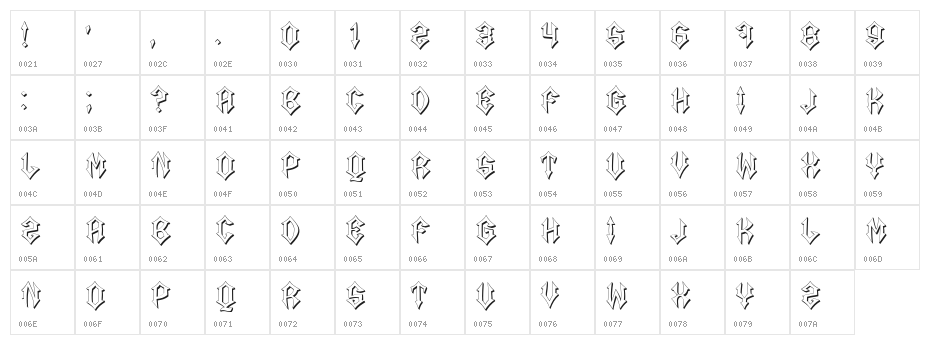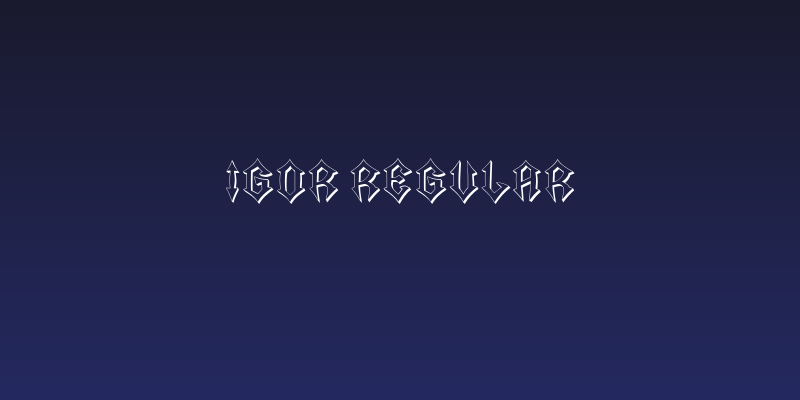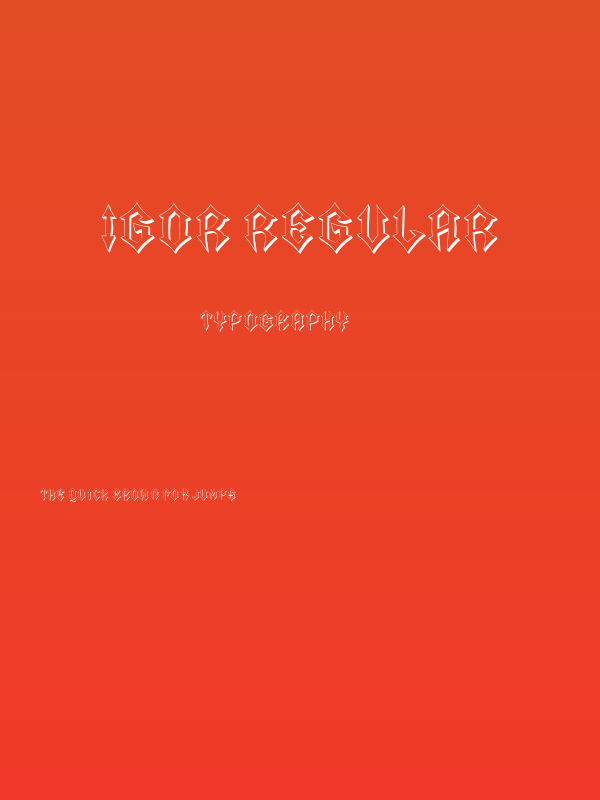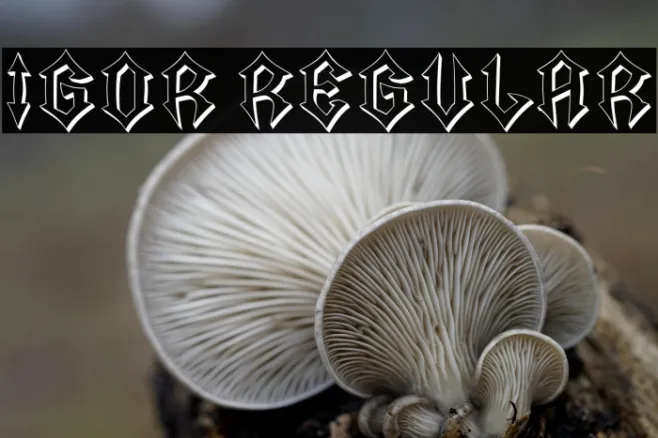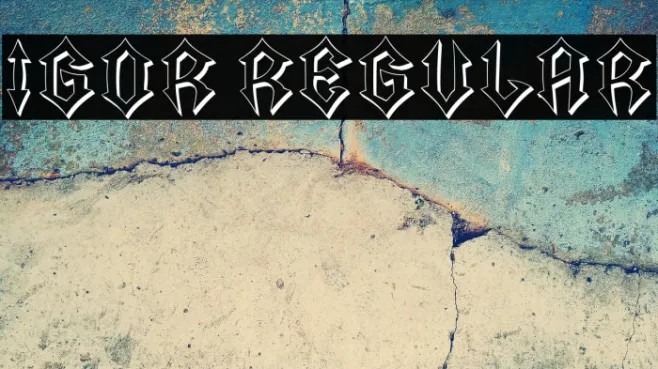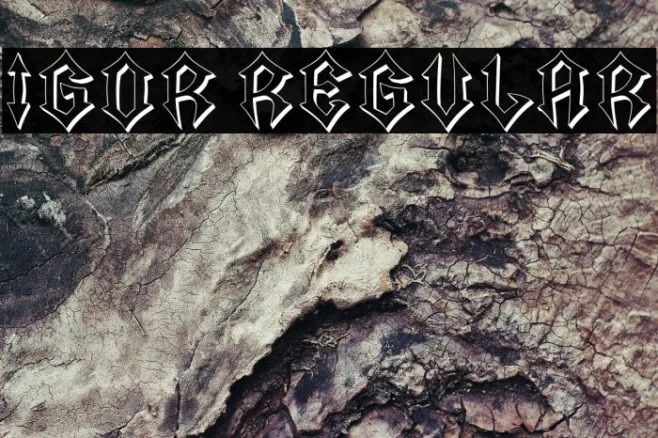
Igor Regular Font
Igor Regular Description
This font features a bold and striking design, characterized by sharp, angular lines and a gothic-inspired aesthetic. The uppercase and lowercase letters maintain a consistent style, with each character exhibiting a unique, pointed structure that enhances its dramatic appearance. The numbers follow the same design principles, ensuring uniformity across all characters. The special characters, including punctuation marks, are crafted with the same attention to detail, making them seamlessly integrate with the rest of the font. This font's distinct style makes it ideal for projects that require a bold and eye-catching typeface.
| Overall Style | Gothic, Decorative |
| Proposed Projects | Ideal for album covers, posters, tattoos, and branding that requires a bold, gothic aesthetic. |